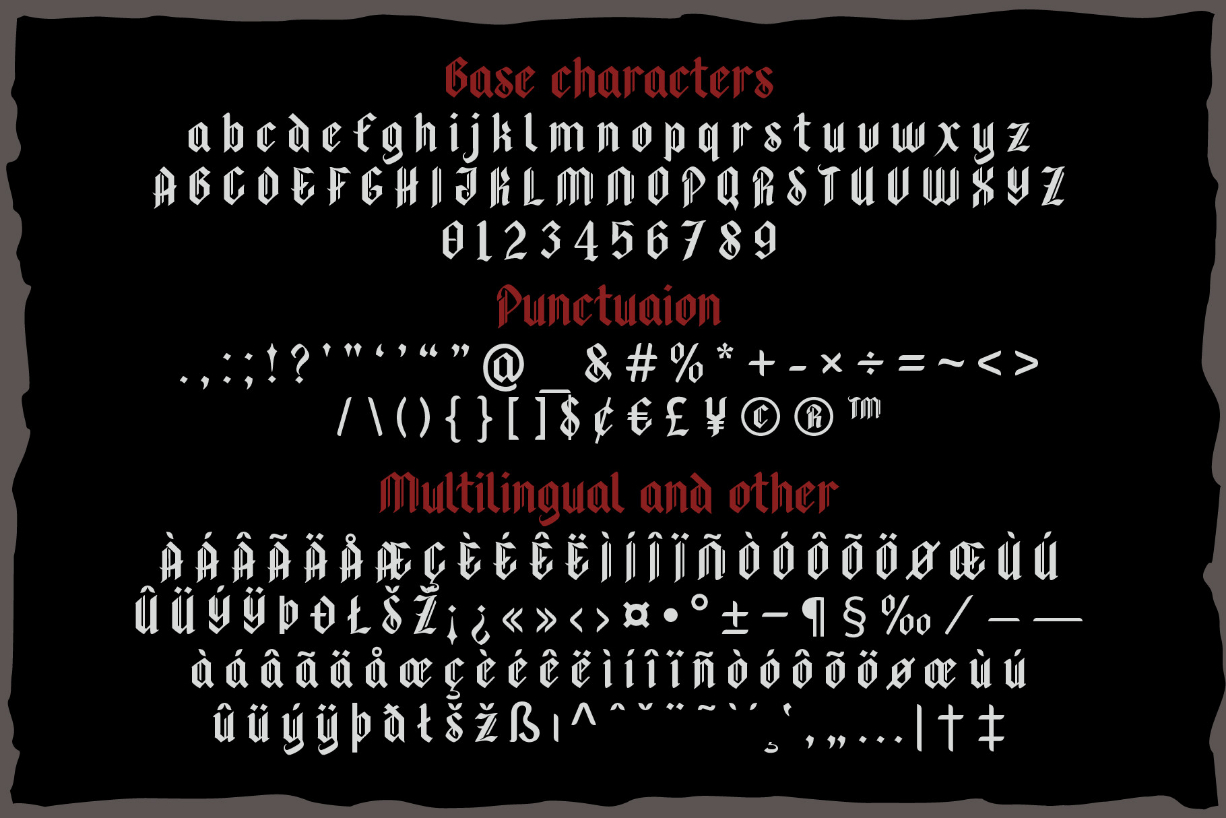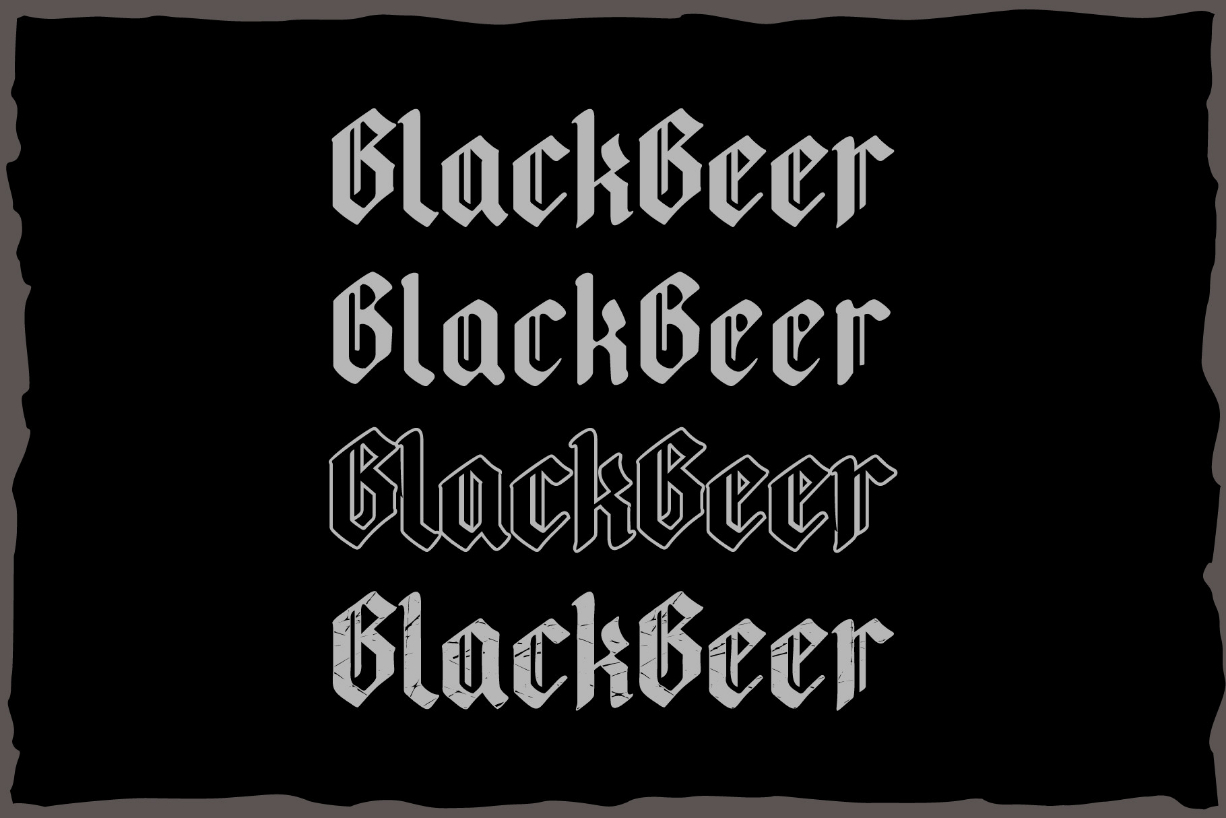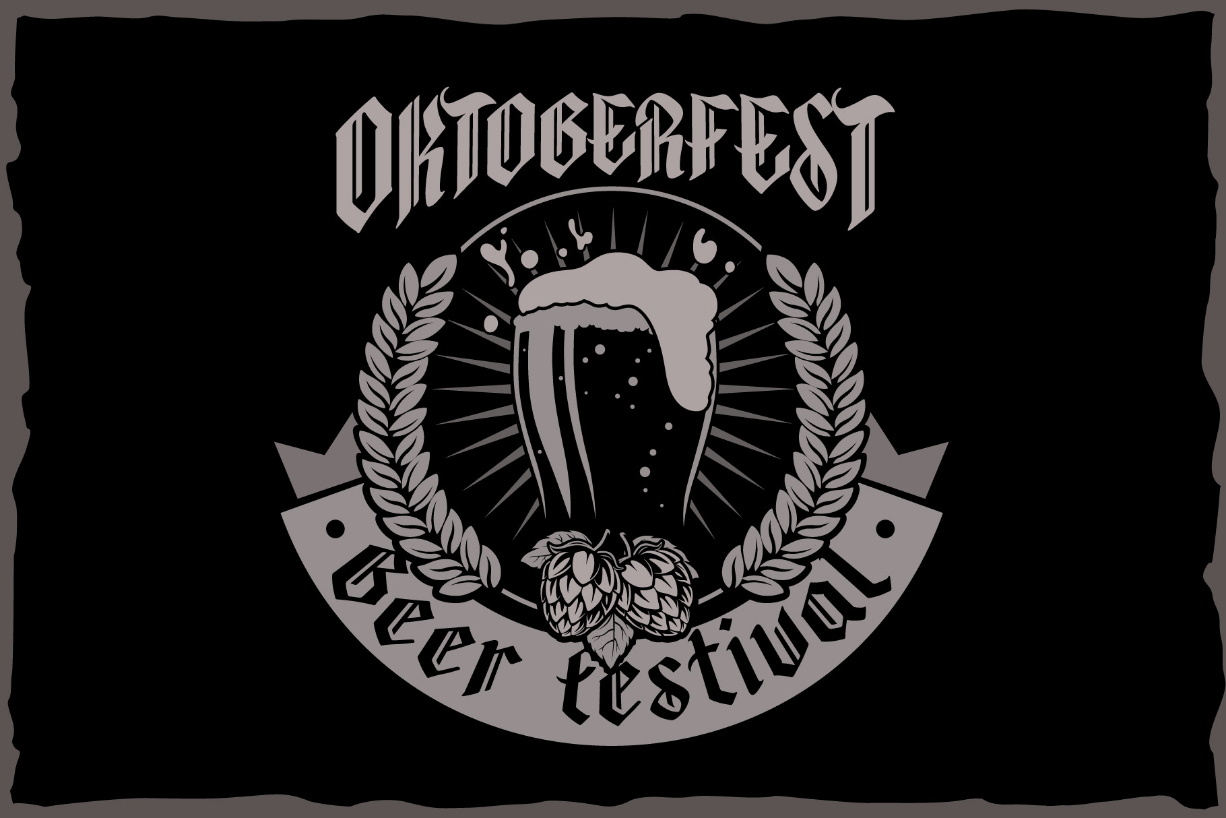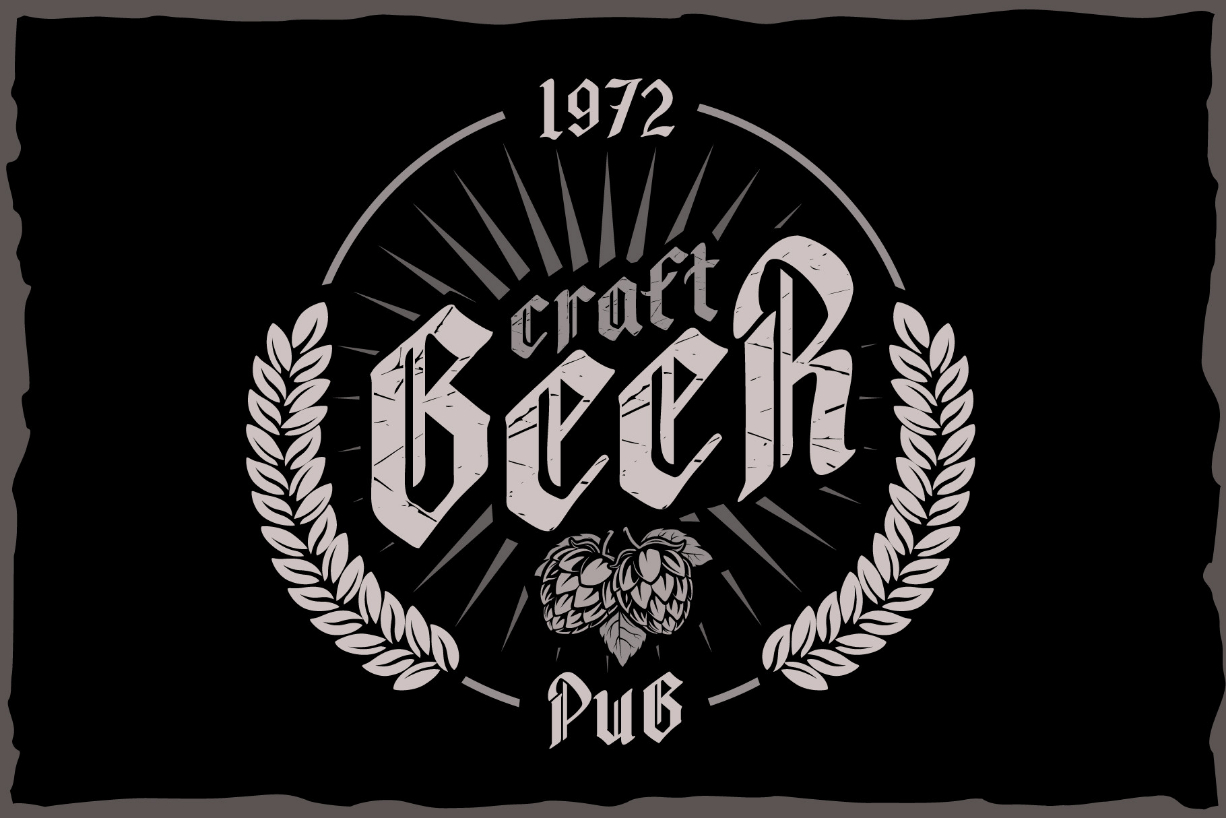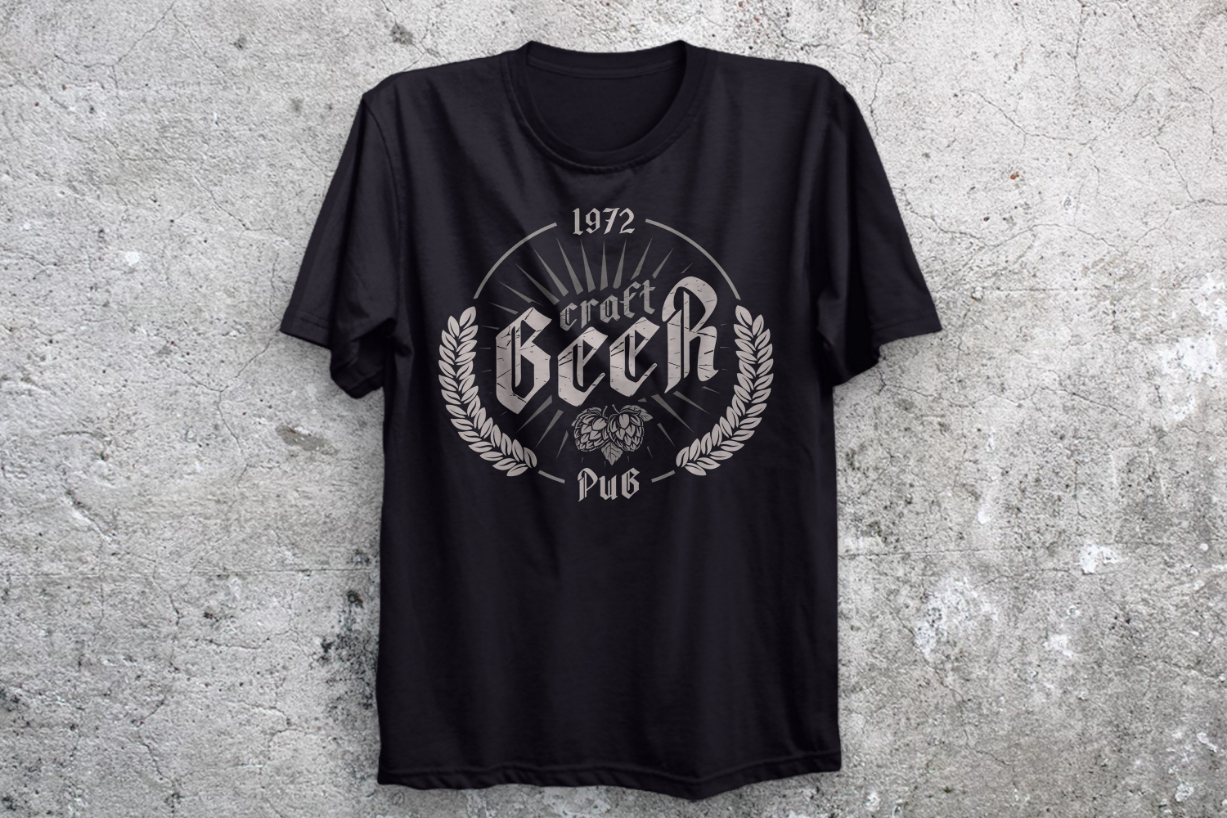
Blackbeer Font
Blackbeer is a stunningly strong, gothic blackletter font. It is designed for logos, prints, headlines, and more creative projects that need bold and daring typography!